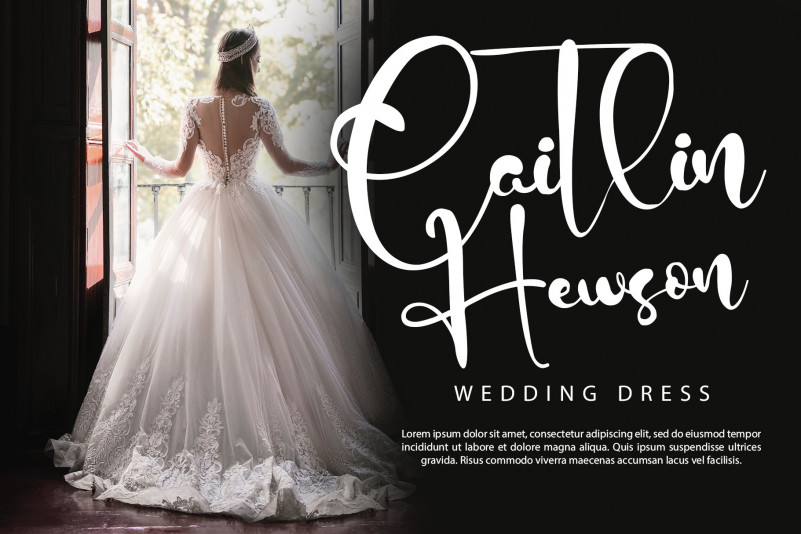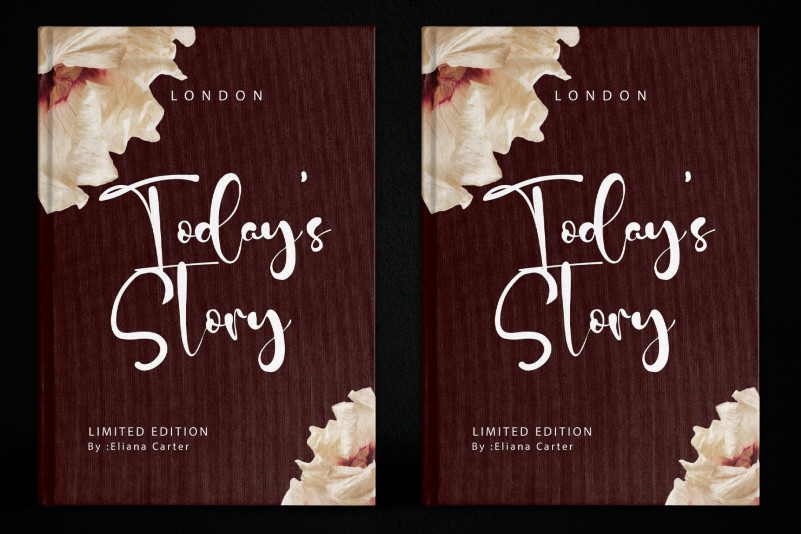
Tahugraphy Font
Tahugraphy Script Font is a lovely and delicate script font that exudes elegance and class. This font was particularly crafted for those who need a beautiful and refreshing look to their designs.